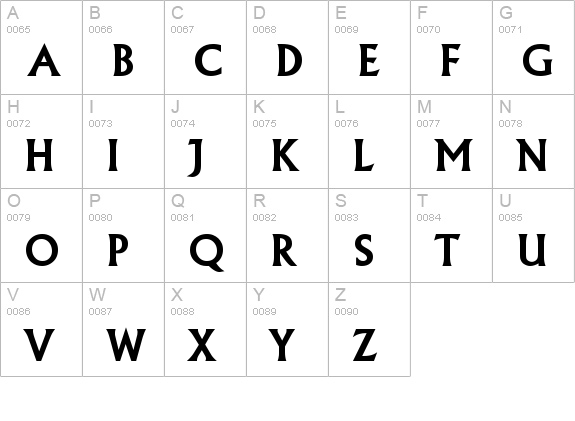
Flair Bold is a strong, high-contrast variant in the Flair typeface family \xE2\x80\x94 well suited to headlines, attention-grabbing titles, and strong calls-to-action.
Flair Bold font is a striking display typeface that exudes elegance and sophistication. With its bold and dynamic letterforms, this font is perfect for making a statement in headlines, logos, and branding materials. The strong, confident style of Flair Bold commands attention and adds a touch of modern flair to any design project. Best of all, Flair Bold is available for free download at FontsMarket.com. Whether you're a seasoned designer looking to add a fresh font to your collection or a beginner exploring typography for the first time, Flair Bold offers a versatile and eye-catching option that will elevate your designs to the next level. Download Flair Bold today and unleash your creativity with this stunning typeface.